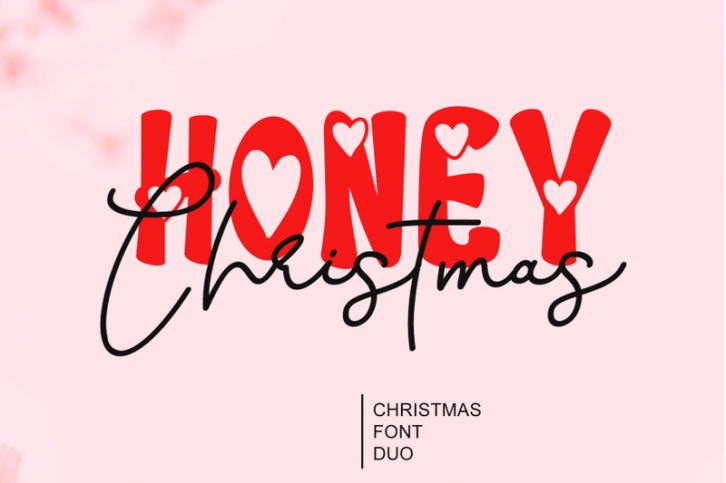
Honey Christmas Font is Lovely Display and Handwritten Style font by Letterafa Studio. It has flowing letters that will give your designs a unique and sweet look. Honey Christmas Font is perfect; logos, greeting cards, a package design, a brand identity, craft design, any DIY project, book title, wedding invitation, packaging, and more.